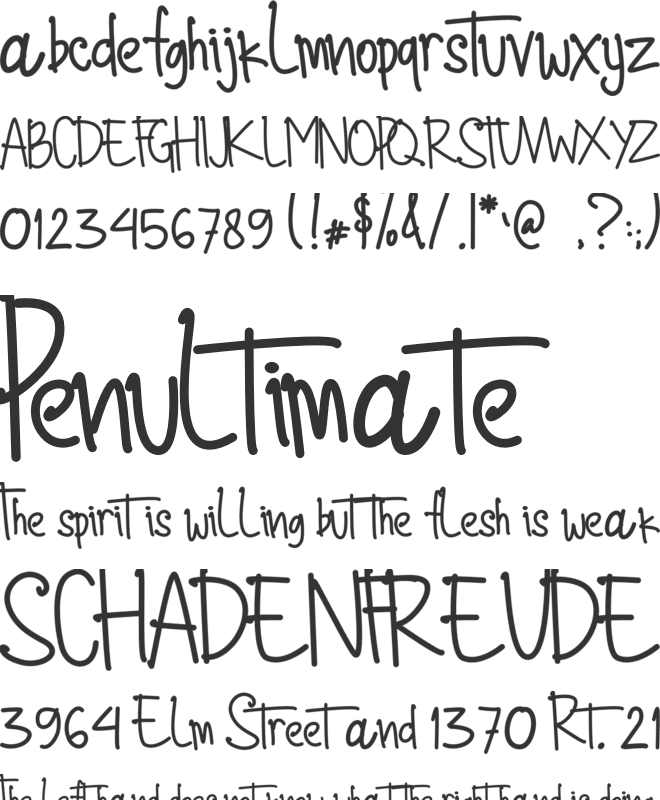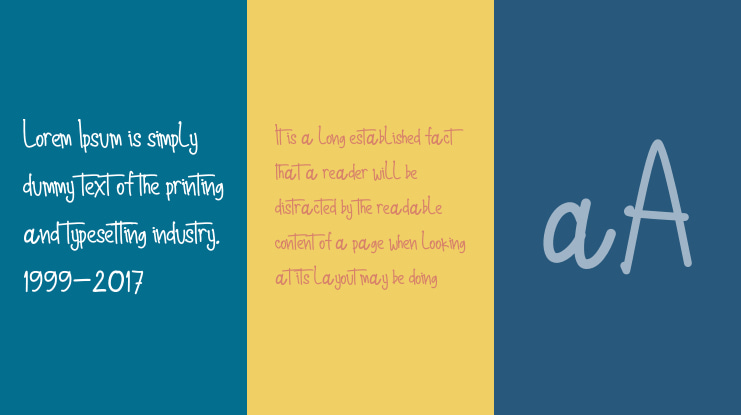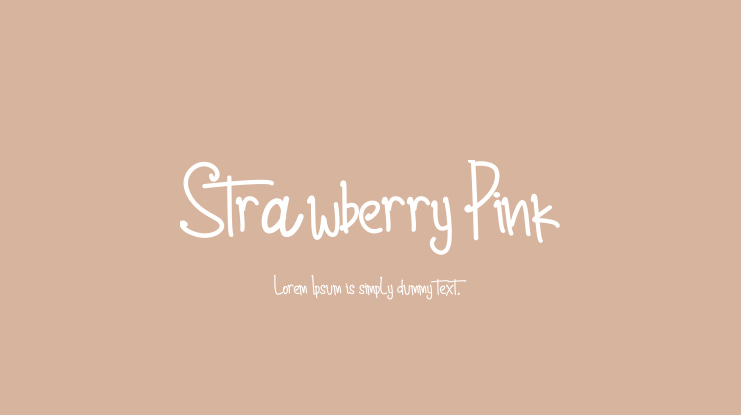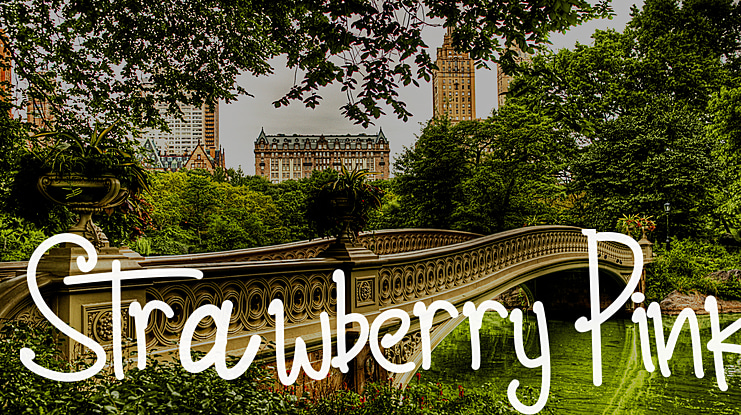
Strawberry Pink Font
Strawberry Pink is a free-flowing script font created for packaging products, invitation cards, flyers, mockups, event posters, and anything else that requires high-quality vibes. It has a beautiful and balanced character, that fits well with the large design pool.